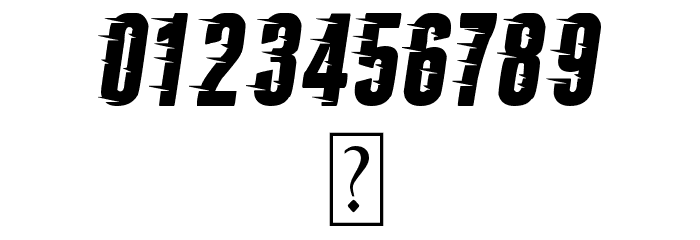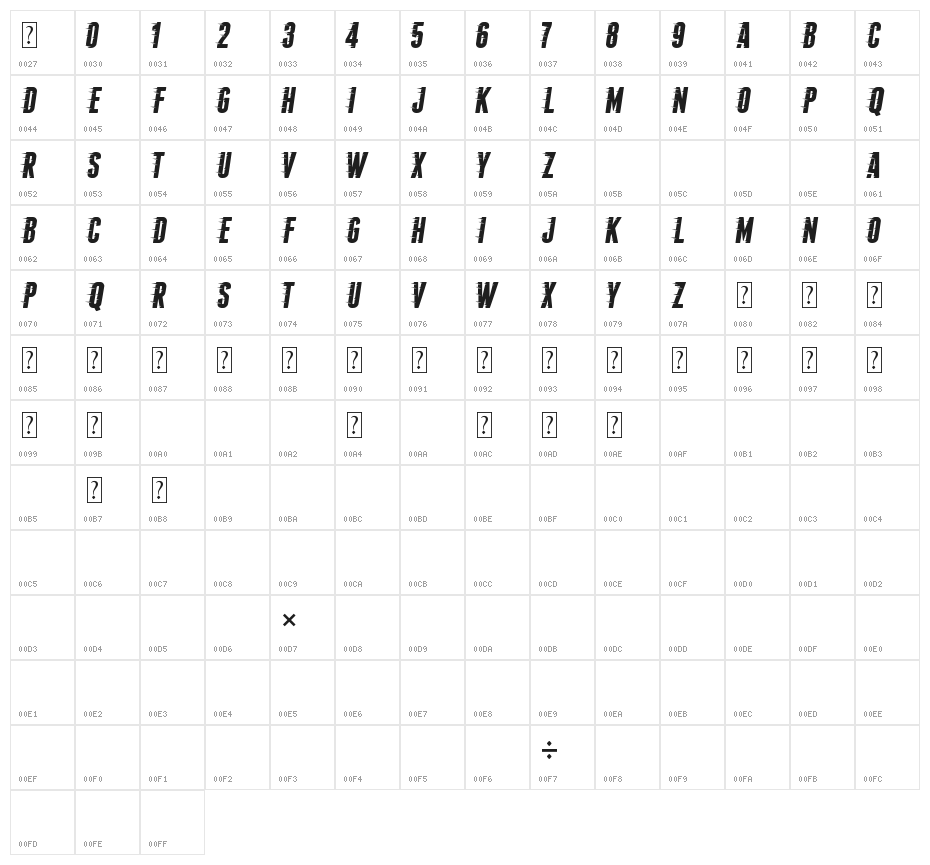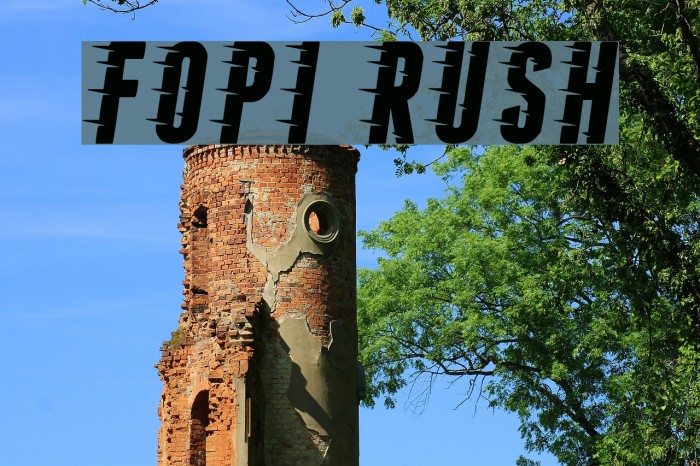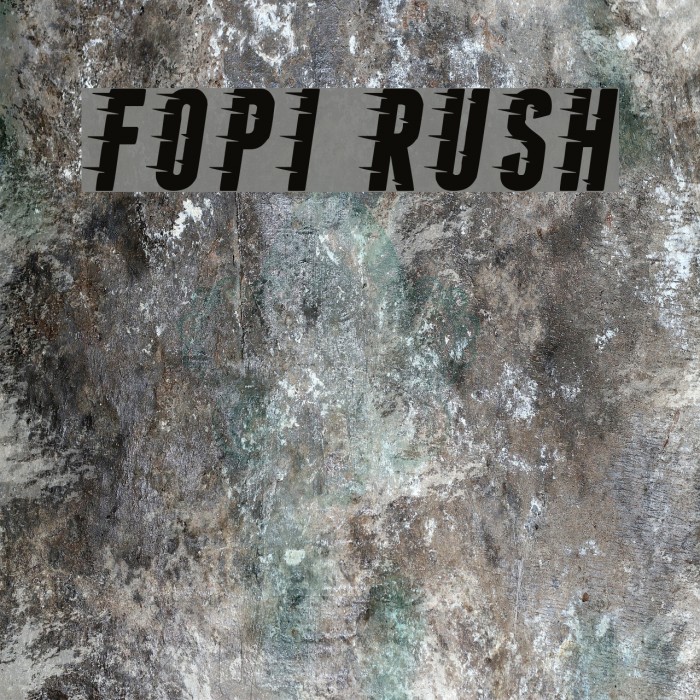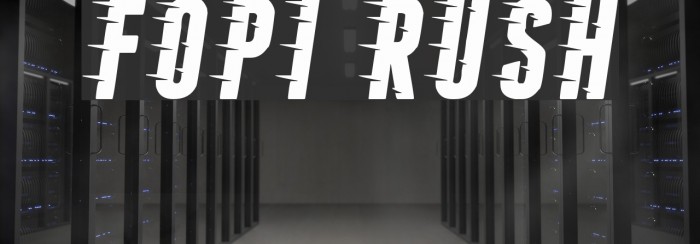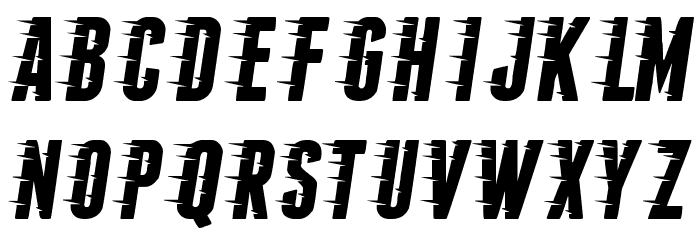
Fopi Rush Font
Fopi Rush Description
This dynamic and bold font features a striking design with sharp, angular cuts that create a sense of motion and urgency. The letters are slanted, giving them a forward-leaning appearance that enhances the feeling of speed. The thick strokes are interrupted by diagonal slashes, adding a unique, edgy character to each letter. This font is perfect for projects that require a modern and energetic vibe, making it ideal for sports branding, action movie posters, or any design that needs to convey movement and excitement.
| Proposed Projects | Ideal for sports branding, action movie posters, and dynamic advertisements. |